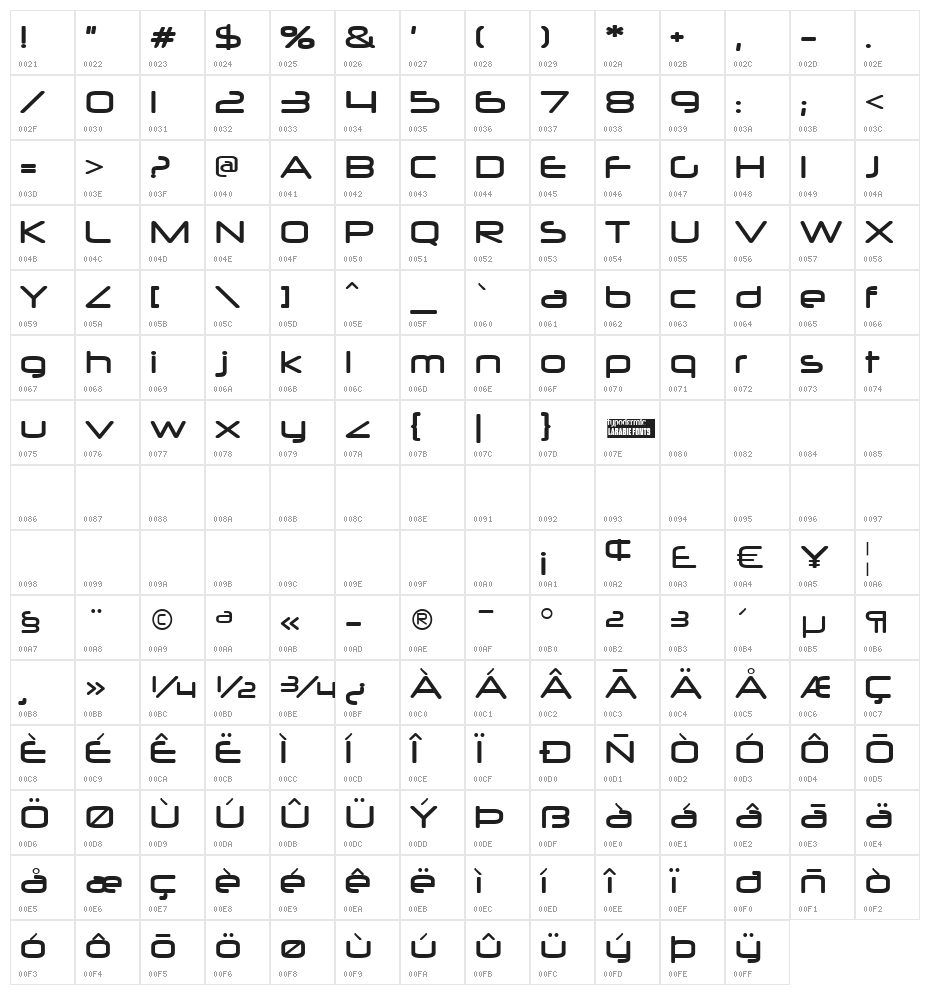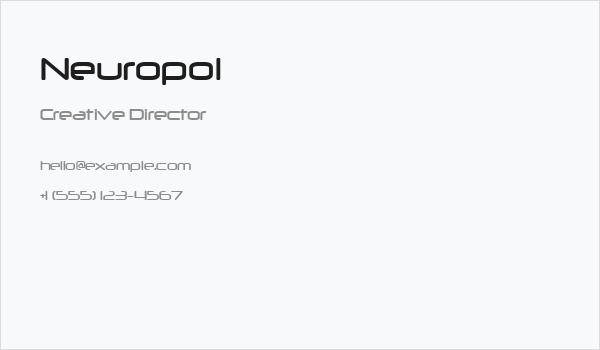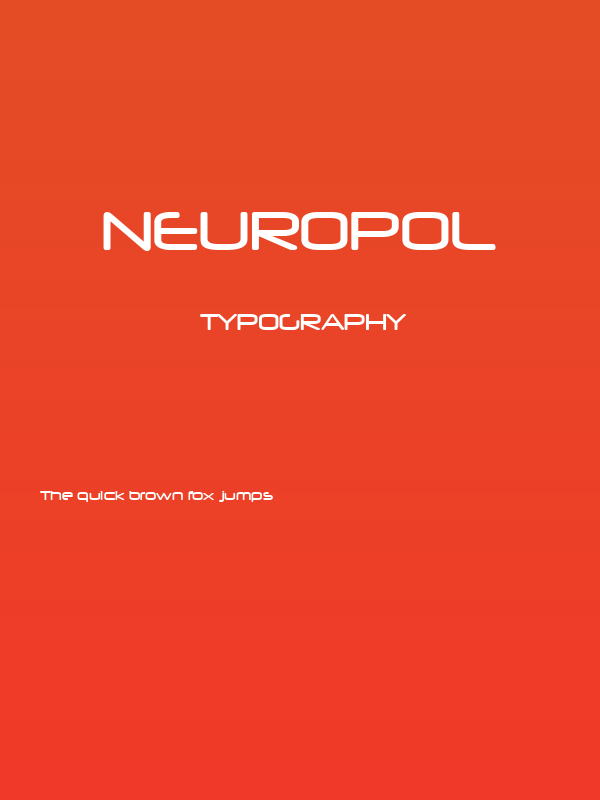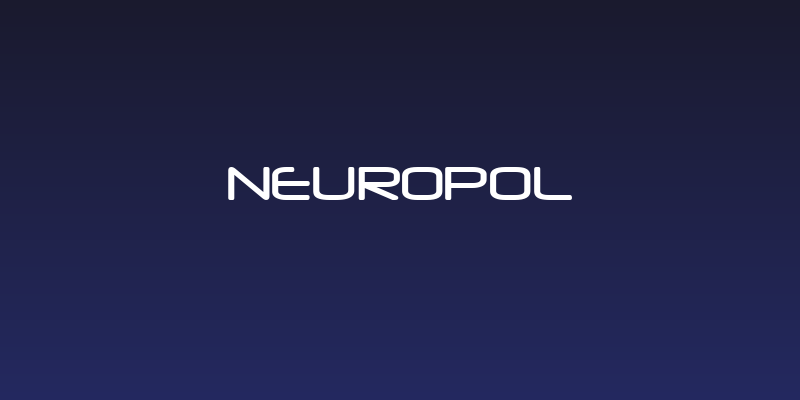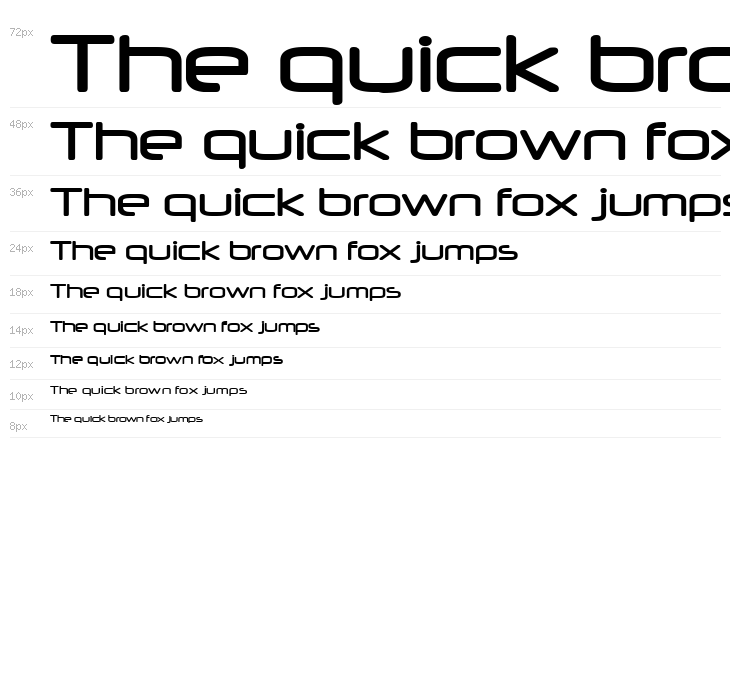
Neuropol Font
Neuropol Description
This font features a futuristic and sleek design with rounded edges and a geometric structure. The characters are uniform in height, giving it a modern and cohesive appearance. The uppercase letters are bold and distinct, while the lowercase letters maintain a consistent style with slightly softer curves. Numbers and special characters follow the same design principles, ensuring a harmonious look across all elements. The font's clean lines and minimalistic approach make it suitable for projects that require a contemporary and tech-inspired aesthetic.
| Use Case | Logos, Headlines, Display |
| Proposed Projects | Ideal for technology branding, sci-fi movie posters, video game titles, and modern web design. |